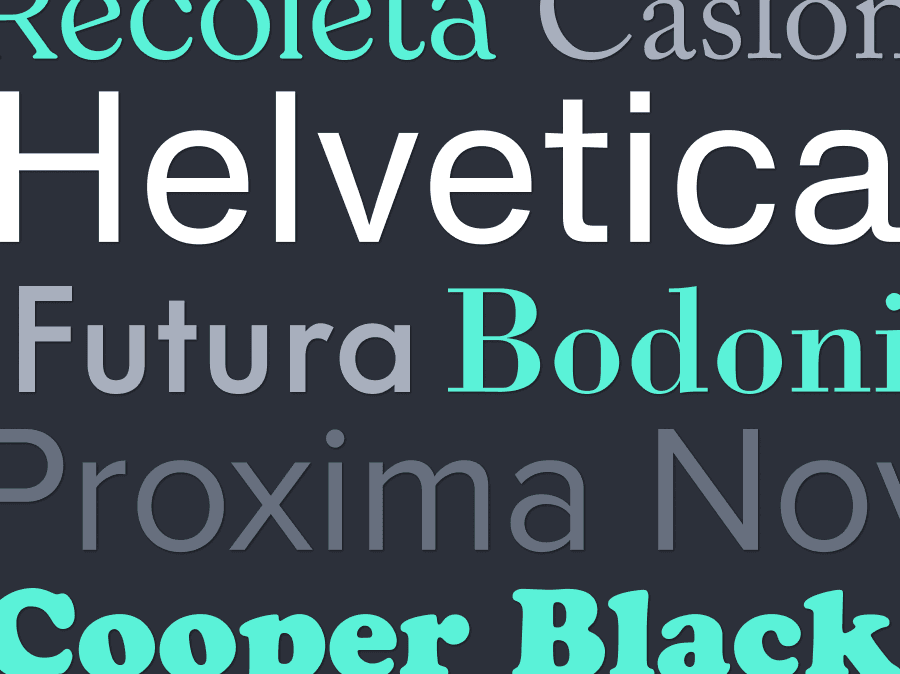
Built on typography. Trusted by creators.
Kittl started with type, and it shows. Discover a carefully crafted commercial font library that’s license-safe, fully editable, and embedded into a design workflow built for real creators.
1,400+ Kittl’s Exclusive Fonts
Every font is handcrafted and finely curated by our in-house type team to meet the needs of today’s creators, from designers to POD trendsetters.
Used by the Best, Now Yours
Kittl’s exclusive fonts don’t live in a dropdown, they’re the actual typefaces seen in Netflix titles, bestselling packaging, and hit games. Used exactly as they are.
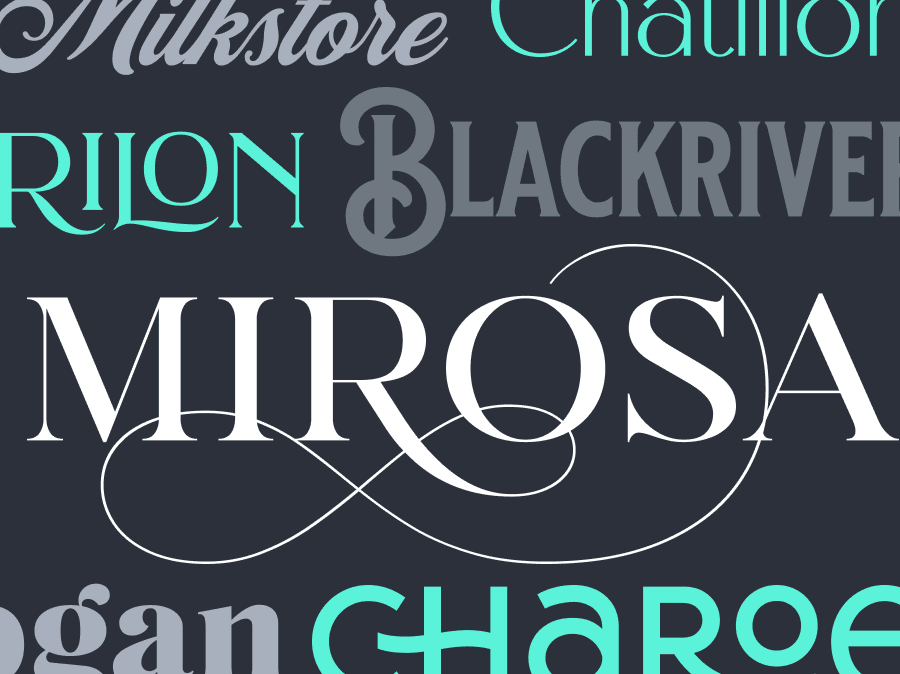
Kittl Exclusive fonts
• Handcrafted by our in-house type designers and curated collaborators.
• Find vintage scripts like Blackriver to clean branding staples that you won’t find anywhere else.
Monotype Classics
• Access 100+ legendary fonts from monotype like Helvetica, Garamond, Avenir, and Futura in one Kittl subscription
• Industry classics that shaped design history, now ready for yours.
Refined public fonts
• We don’t just import and buy fonts, we fix them.
• We manually edit public domain classics for clarity, kerning, and multilingual support so everything works as beautifully as it looks. All available for free.
Trusted by creators, seen around the world
Games
Kittl fonts build worlds. Used in Hogwarts Legacy and Lies of P, our typefaces enhance storytelling with cinematic clarity and mood-setting detail.
Movies and TV Shows
Used in Netflix originals and chart-topping albums, our typefaces are built for the big screen and also the spotlight.
Packaging and Brands
You’ve seen our type on bestsellers and boutique brands alike. Kittl fonts bring premium flair to food, drinks, cosmetics, and everything in between.
Why designers choose Kittl Fonts
Typography isn’t just a feature in Kittl — it’s where everything started. That’s why our commercial fonts library runs deeper than most: 1,400+ free and premium fonts for designers, fully integrated and ready to go.
A complete typography ecosystem
• Access a full typography ecosystem — designed for performance and built for creators
• Real-world ready — handpicked and optimized for packaging, T-shirts, social media, print, and more
• Built-in mockups and templates — preview your type in real layouts before export
Advanced letter customization
Shape your typography exactly how you want it
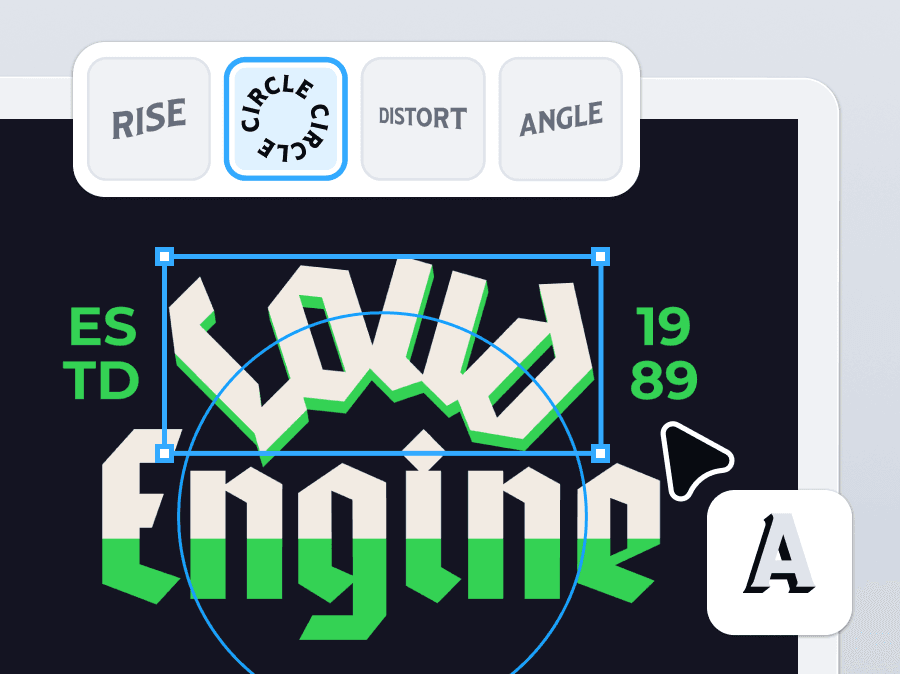
• Swap alternate glyphs, swashes and symbols instantly
• Use one-click ligatures for natural, flowing letterforms
• Apply distort, rise and custom-path transforms with precision
Add outlines, shadows, textures, and warps in seconds
• Style your fonts with just a few clicks
• Add outlines, shadows, textures, and warps in seconds
• Drop in 3D or block shadows — tweak depth, angle, and color fast
• Over 1,400 styles including serif, sans serif, script, slab, vintage, futuristic, and more. Plus, exclusive fonts handcrafted by our in-house team and classics from Monotype.
Kittl isn’t just where you find better fonts—it’s where you finally use them the way they were meant to be used. Professional-grade type. Total creative freedom. One seamless platform.